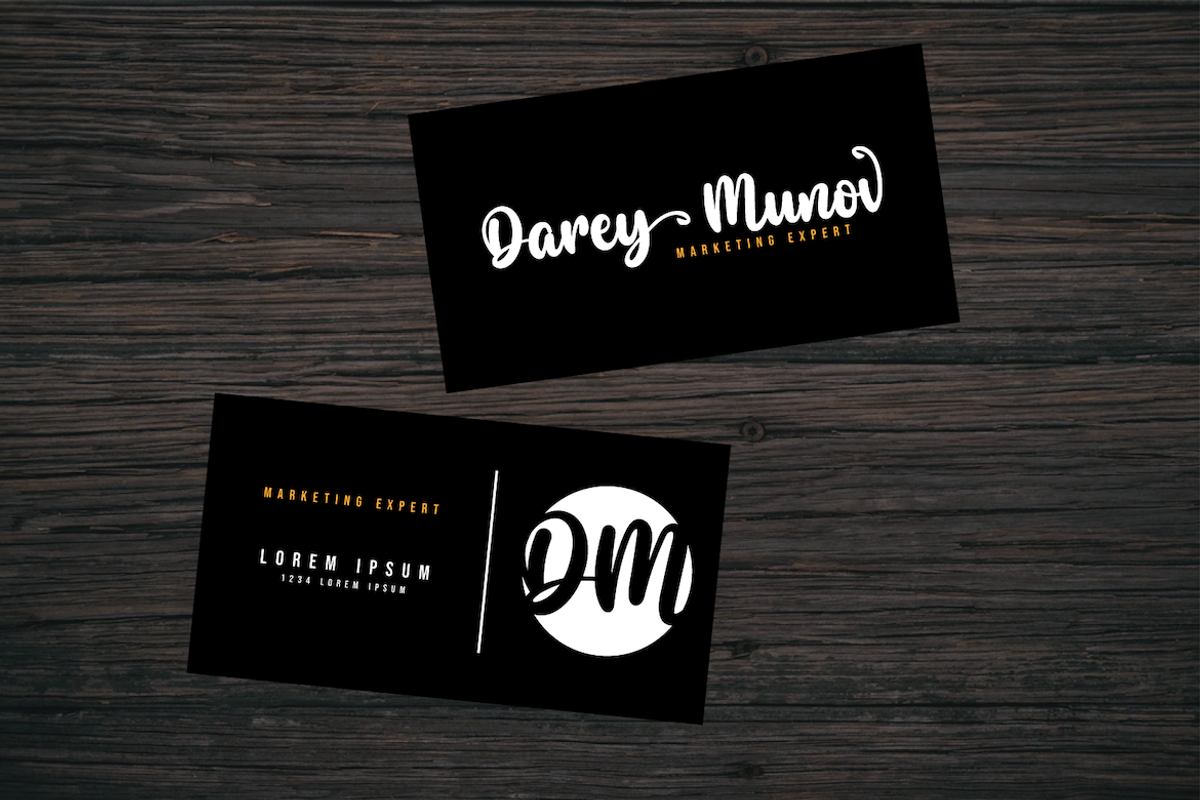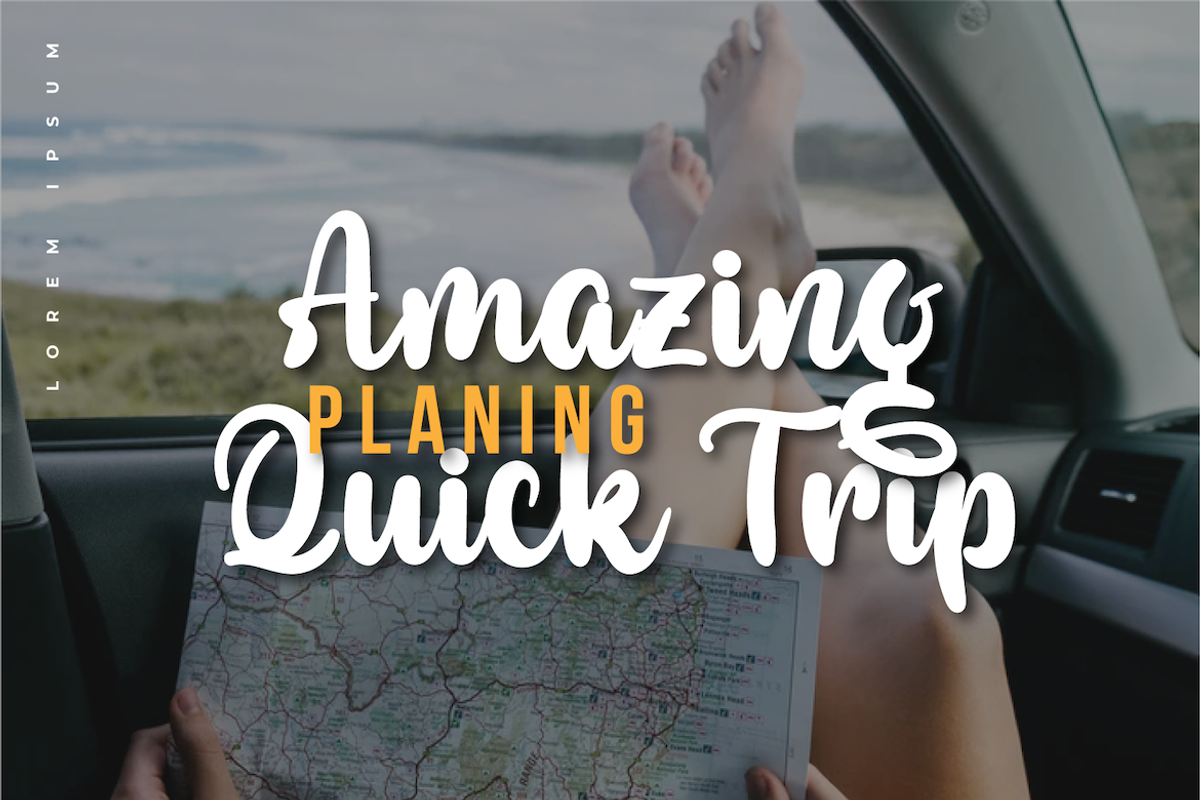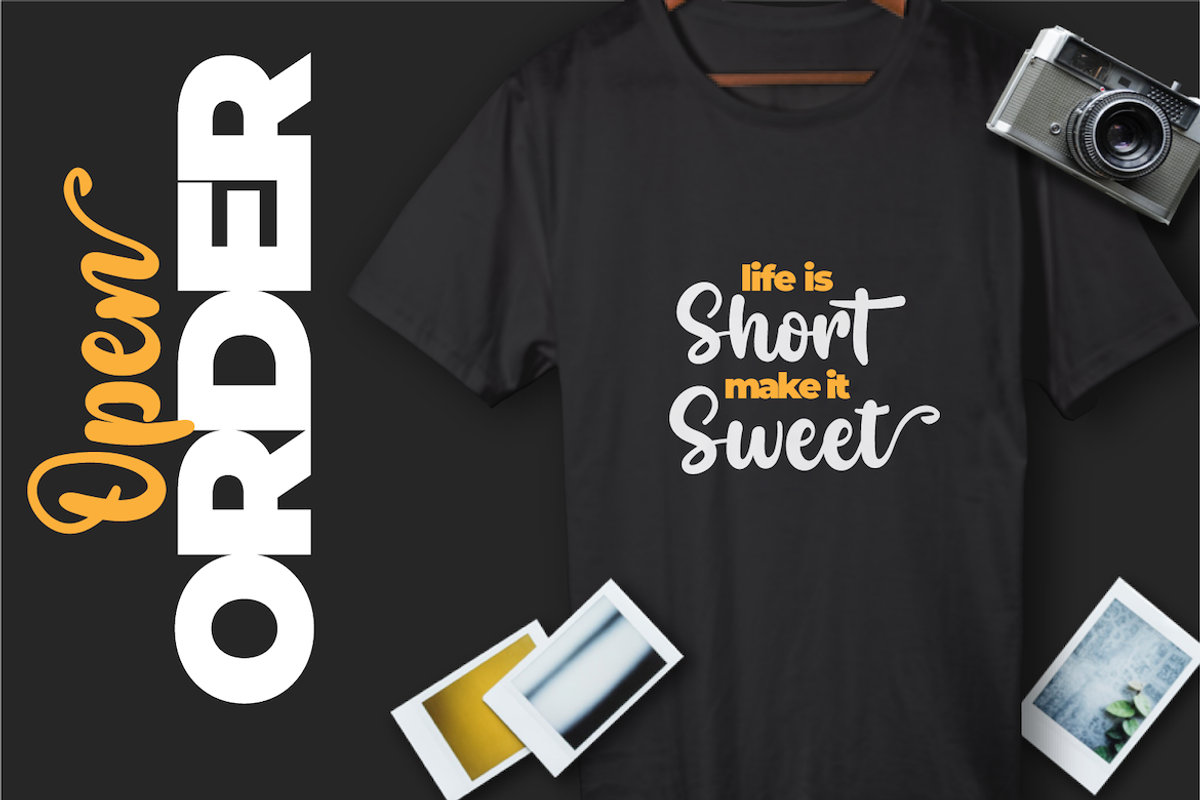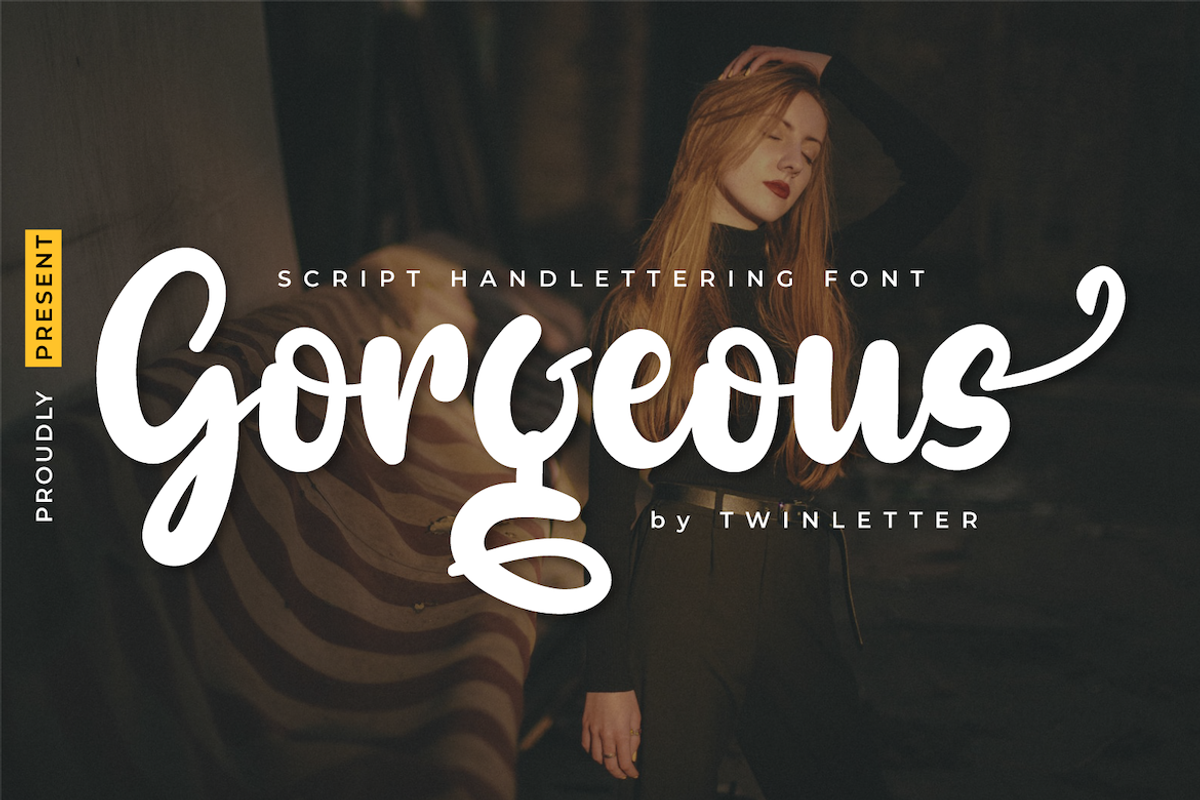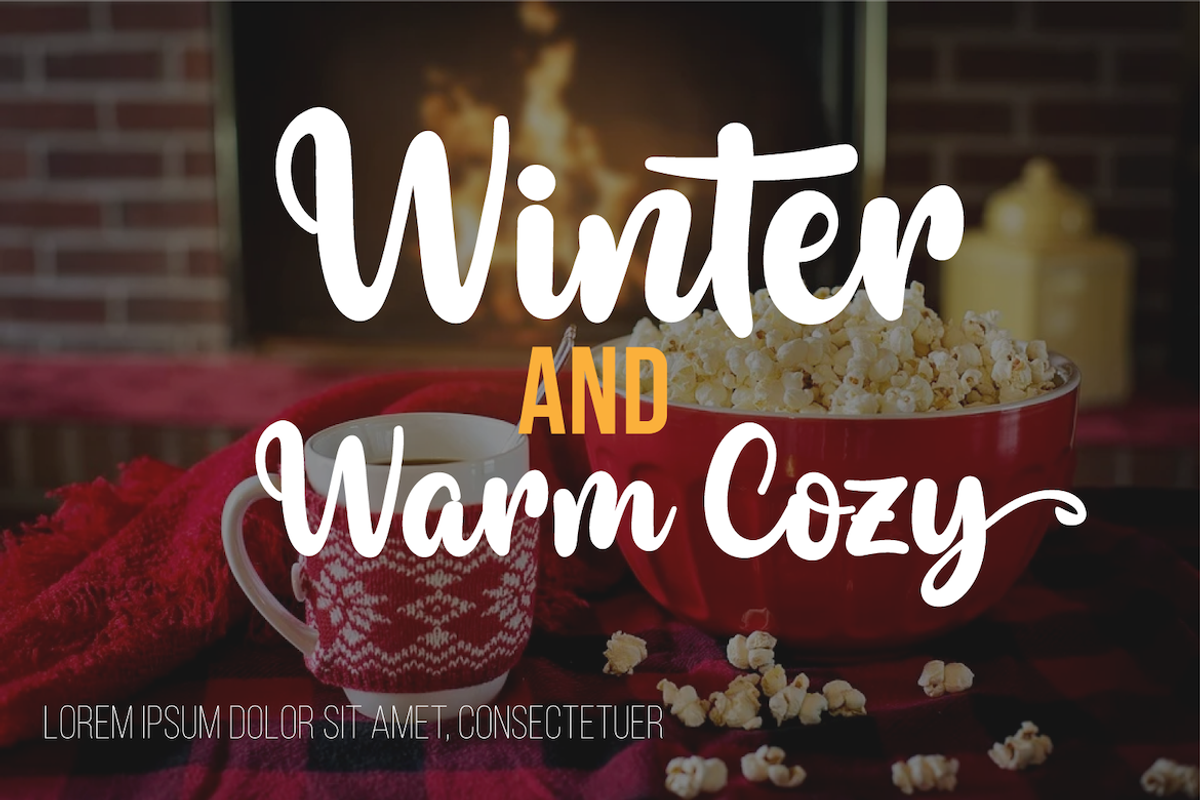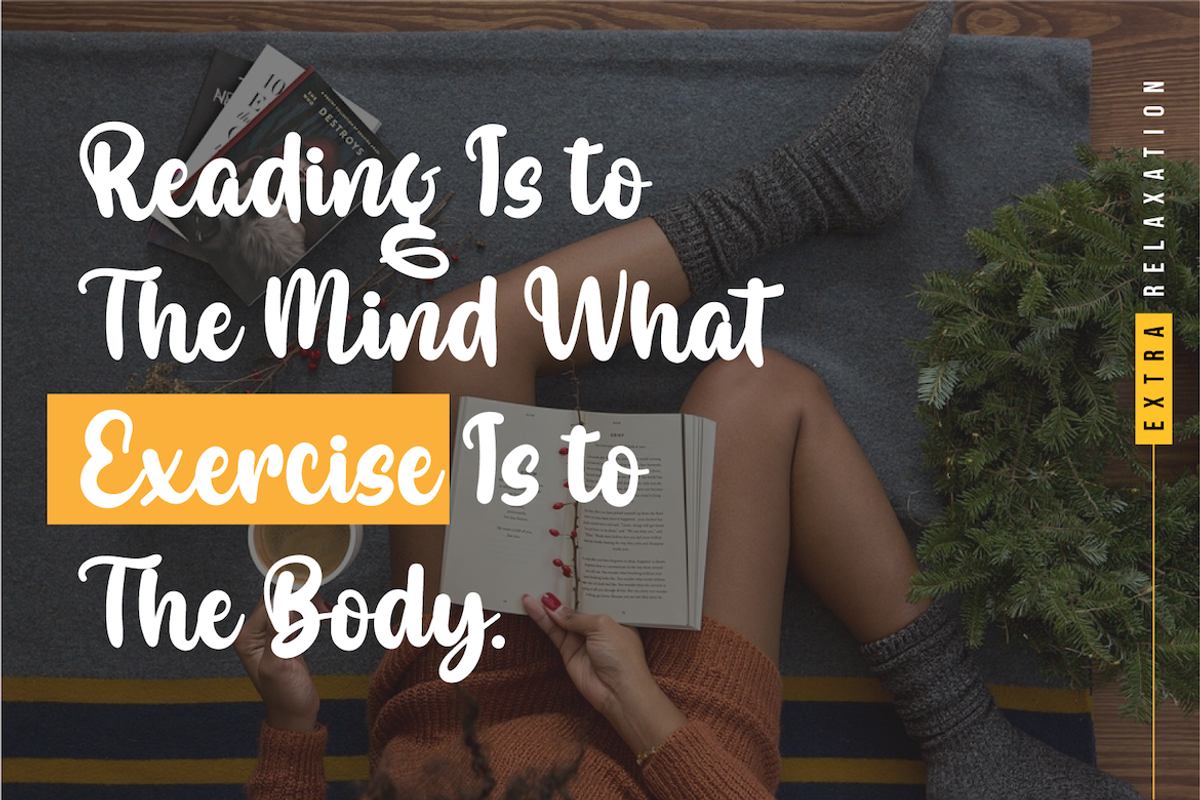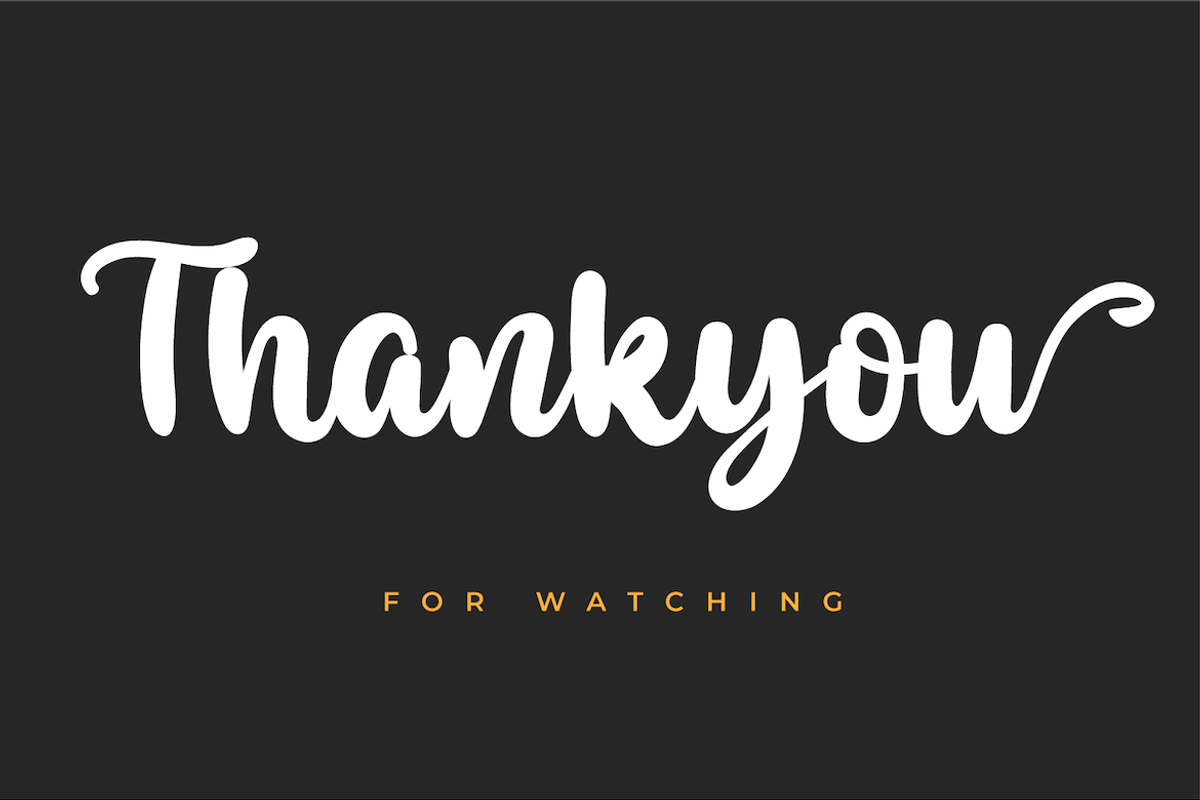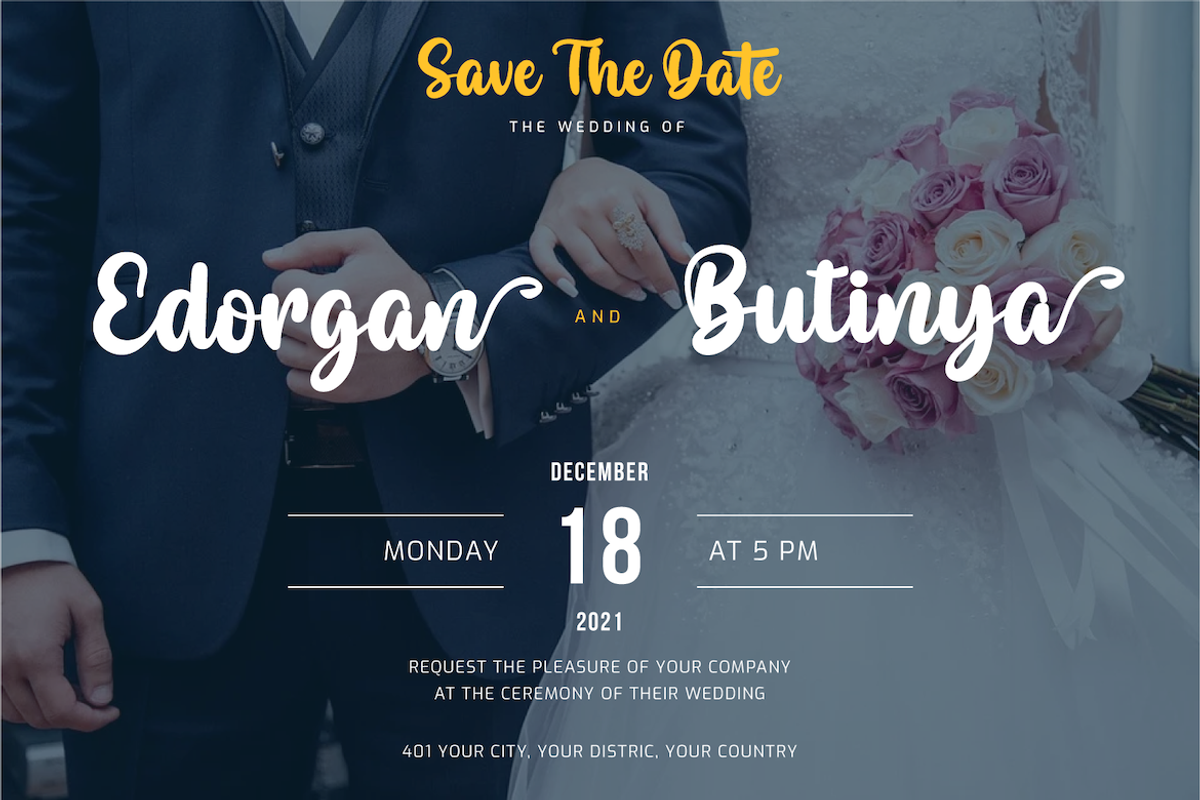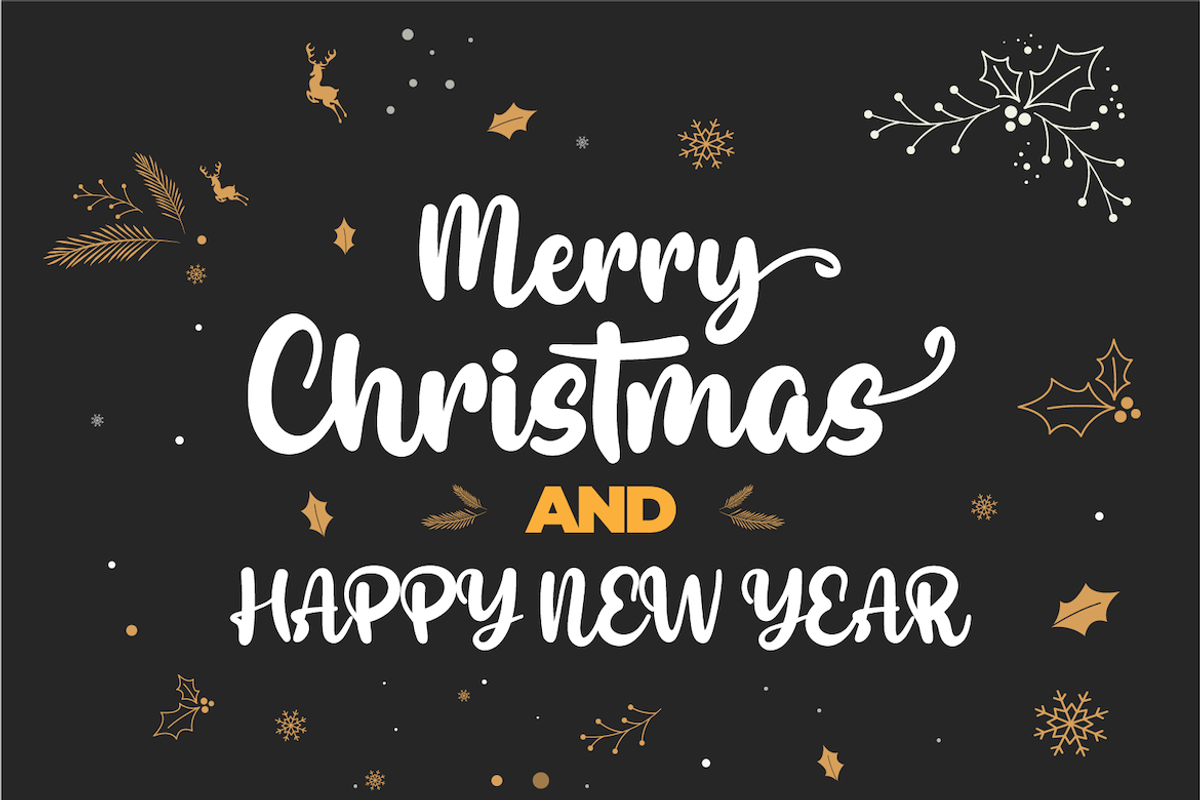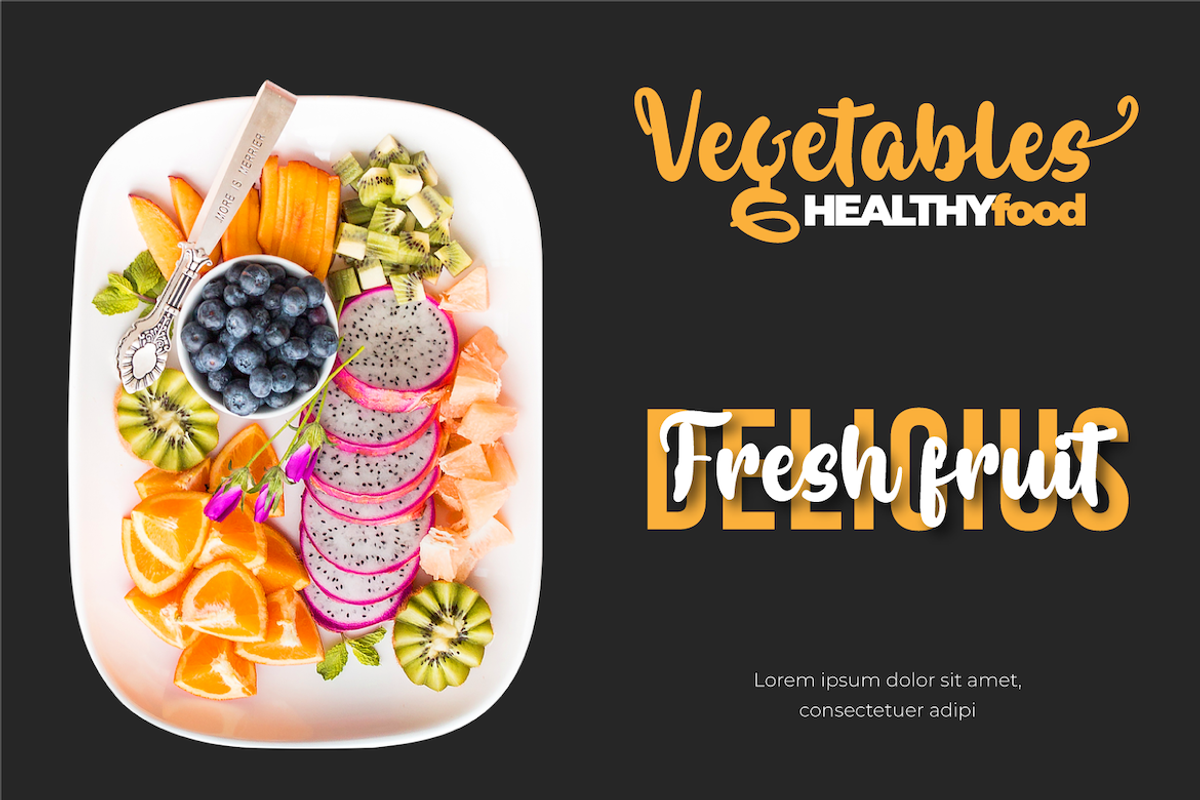
Gorgeous
Gorgeous is our newest script font created with sweet and sweet hand strokes, with subtle touches and dramatic curves making this font unique.
This bold calligraphy font is designed with a relaxed but elegant background, while still paying attention to the beauty of each letter, there are alternate options for lowercase letters, so that it automatically beautifies the visual appearance in your design project. besides that, this font also offers harmoniously beautiful abstract typography for your various design projects. This font is also perfect for wedding invitations, quote designs, social media business designs, advertisements, trademarks, food and beverage promotion banners, text, posters, signatures, and any design that requires handwriting.
This font is equipped with uppercase, lowercase, numbers, punctuation marks, swhases and several variations on each character including multi-language.